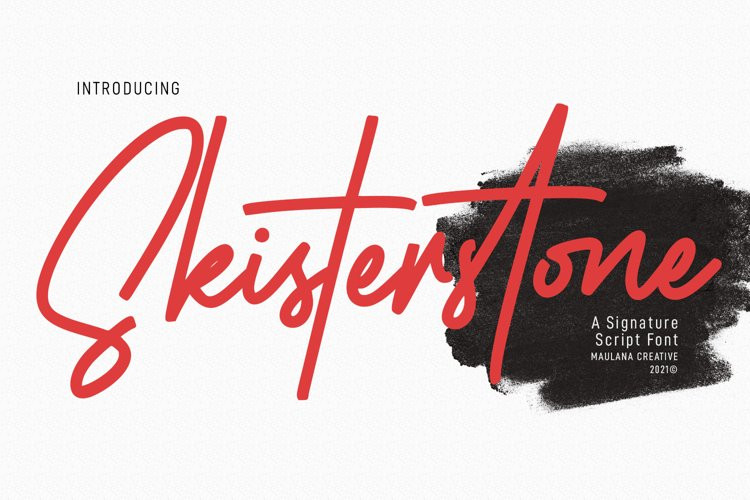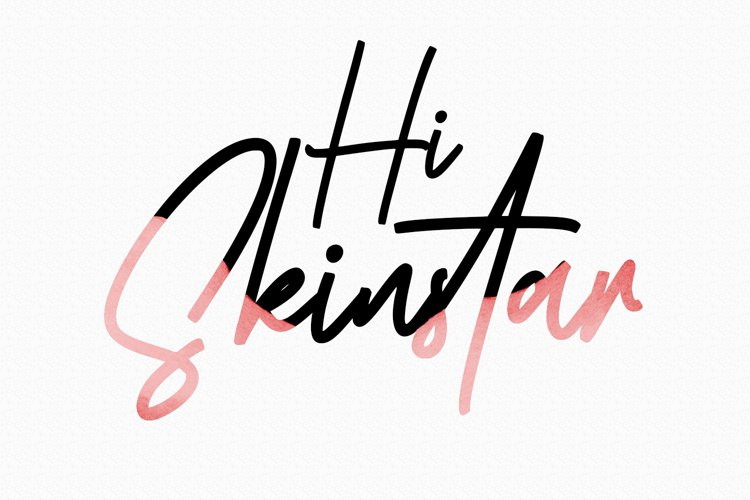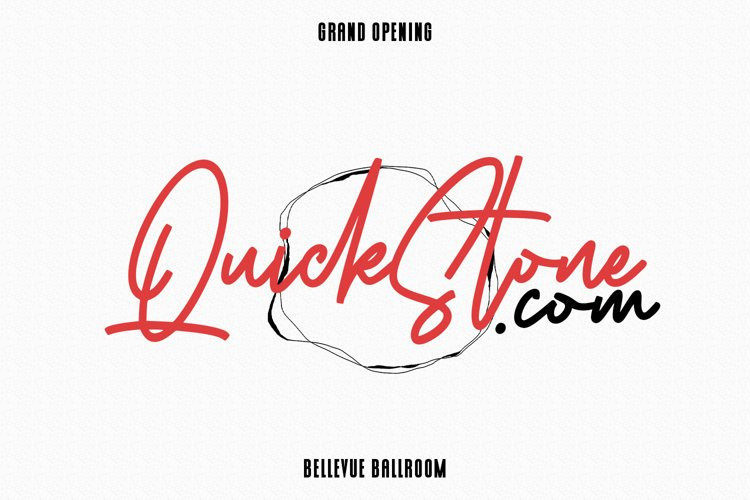
Skisterstones Font
Skisterstones FontSkisterstone is a Casual Signature Script font. With regular mono-line stroke, fun character with a bit of ligatures. To give you an extra creative work. Skisterstone font support multilingual more than 100+ language. This font is good for logo design, Social media, Movie Titles, Books Titles, a short text even a long text letter and good for your secondary text font with sans or serif. Make a stunning work with Skisterstone font.